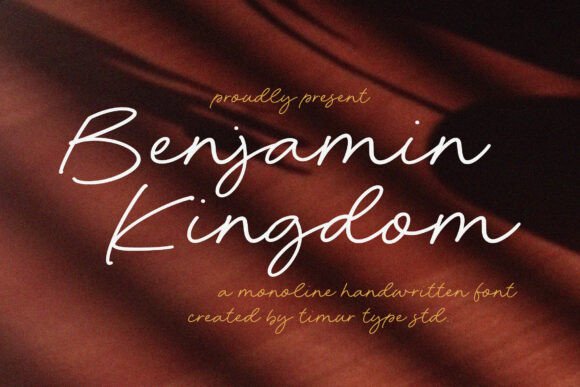
Introducing Benjamin Kingdom Font: Elevate Your Designs with Elegance and Sophistication
In the world of typography, fonts play a crucial role in conveying the tone and personality of a brand or design. Among the numerous fonts available, Benjamin Kingdom stands out as a stylish monoline handwritten font that exudes an elegant and modern feel. Its smooth, flowing strokes and balanced letterforms make it an ideal choice for logos, branding, invitations, and creative designs that require a touch of sophistication.
Key Features of Benjamin Kingdom Font
- Monoline Handwritten Style: Benjamin Kingdom boasts a sleek and modern monoline handwritten style that sets it apart from traditional fonts.
- Elegant and Refined Aesthetic: The font’s smooth, flowing strokes and balanced letterforms create a natural yet refined aesthetic that adds warmth and sophistication to any project.
- Versatility: Benjamin Kingdom is perfect for a wide range of design applications, including logos, branding, invitations, and creative designs.
Design Applications for Benjamin Kingdom Font
Benjamin Kingdom’s versatility makes it an excellent choice for various design applications. Here are some of the ways you can use this elegant font:
- Logos and Branding: Create a lasting impression with a logo that exudes elegance and sophistication. Benjamin Kingdom’s smooth strokes and balanced letterforms make it perfect for crafting a unique brand identity.
- Invitations and Events: Add a touch of refinement to your invitations, wedding cards, and event materials with Benjamin Kingdom’s elegant font.
- Creative Designs: Use Benjamin Kingdom to elevate your creative designs, such as posters, flyers, and brochures, with its modern and sophisticated aesthetic.
Typography Tips for Using Benjamin Kingdom Font
To get the most out of Benjamin Kingdom, here are some typography tips to keep in mind:
- Pair with Neutral Backgrounds: Benjamin Kingdom’s elegant font works best with neutral backgrounds that allow the text to take center stage.
- Experiment with Font Sizes: Play with different font sizes to create visual hierarchy and add emphasis to specific parts of your design.
- Use Contrast: Use contrasting colors to make your text stand out and create a visually appealing design.
The Benefits of Using Benjamin Kingdom Font
Benjamin Kingdom offers several benefits that make it an attractive choice for designers and brands:
- Unique and Memorable: Benjamin Kingdom’s elegant font helps create a unique and memorable brand identity that sets you apart from the competition.
- Versatile: The font’s versatility makes it suitable for various design applications, from logos and branding to creative designs.
- Easy to Read: Benjamin Kingdom’s smooth strokes and balanced letterforms ensure that your text is easy to read, even at small font sizes.
In conclusion, Benjamin Kingdom is a stylish monoline handwritten font that offers elegance, sophistication, and versatility. Its smooth, flowing strokes and balanced letterforms make it perfect for logos, branding, invitations, and creative designs. By incorporating Benjamin Kingdom into your design projects, you can elevate your brand’s visual identity and create a lasting impression on your audience.